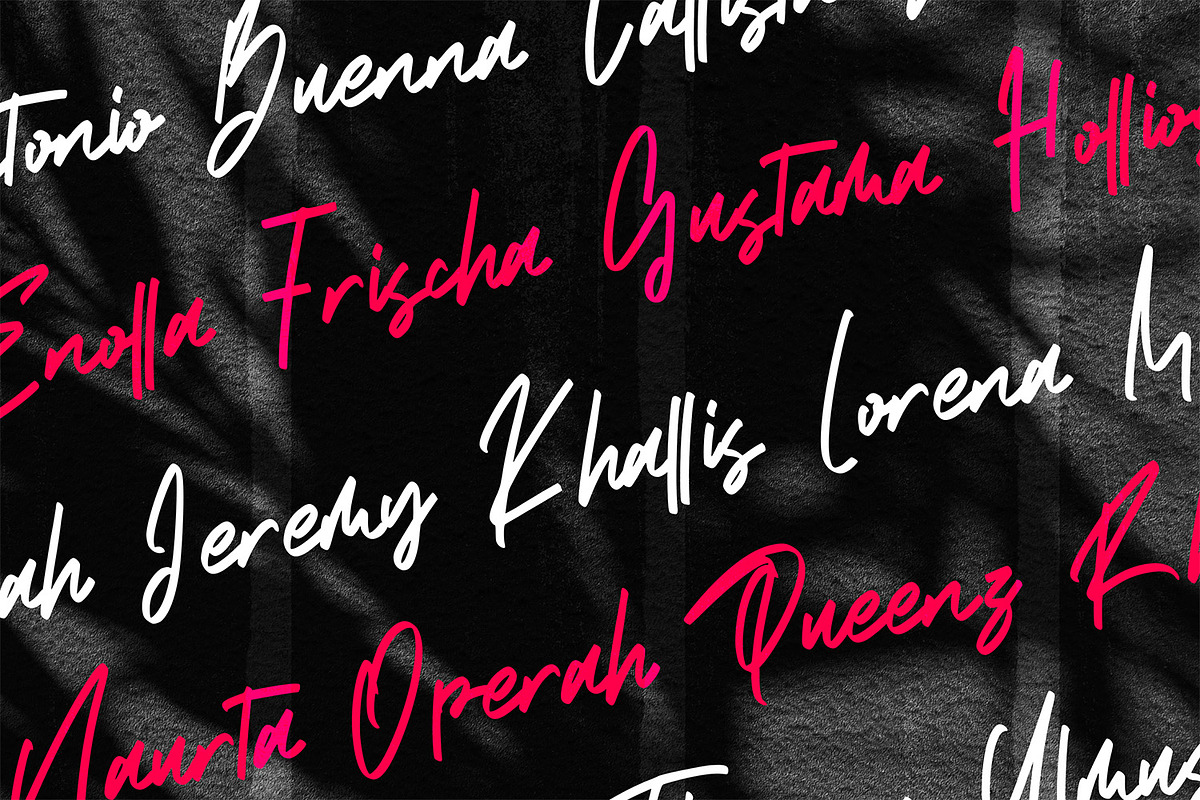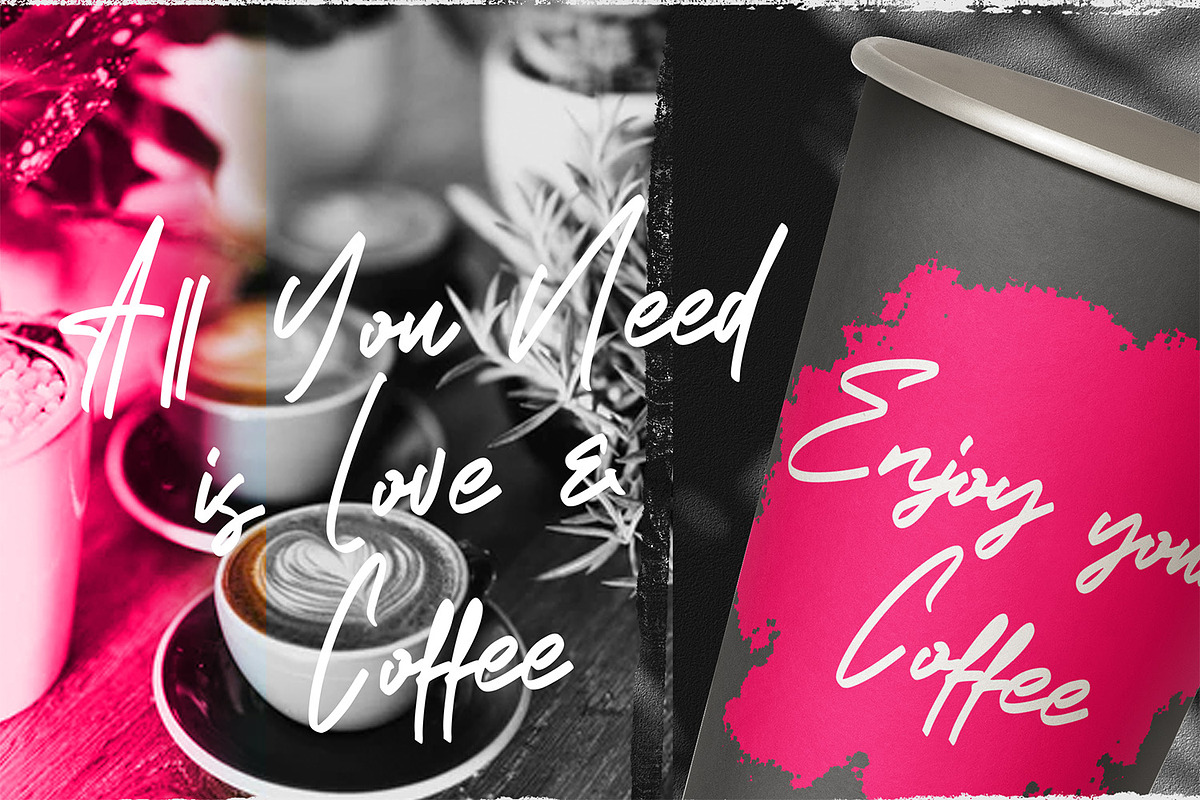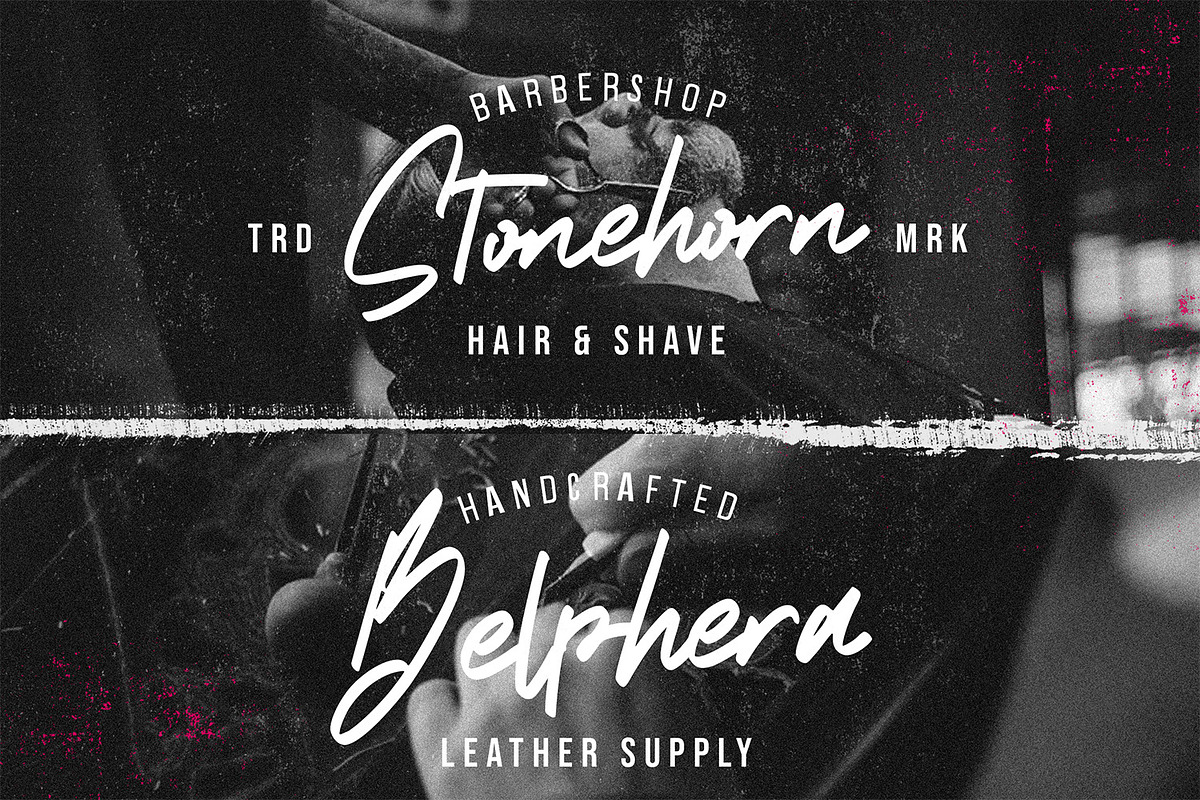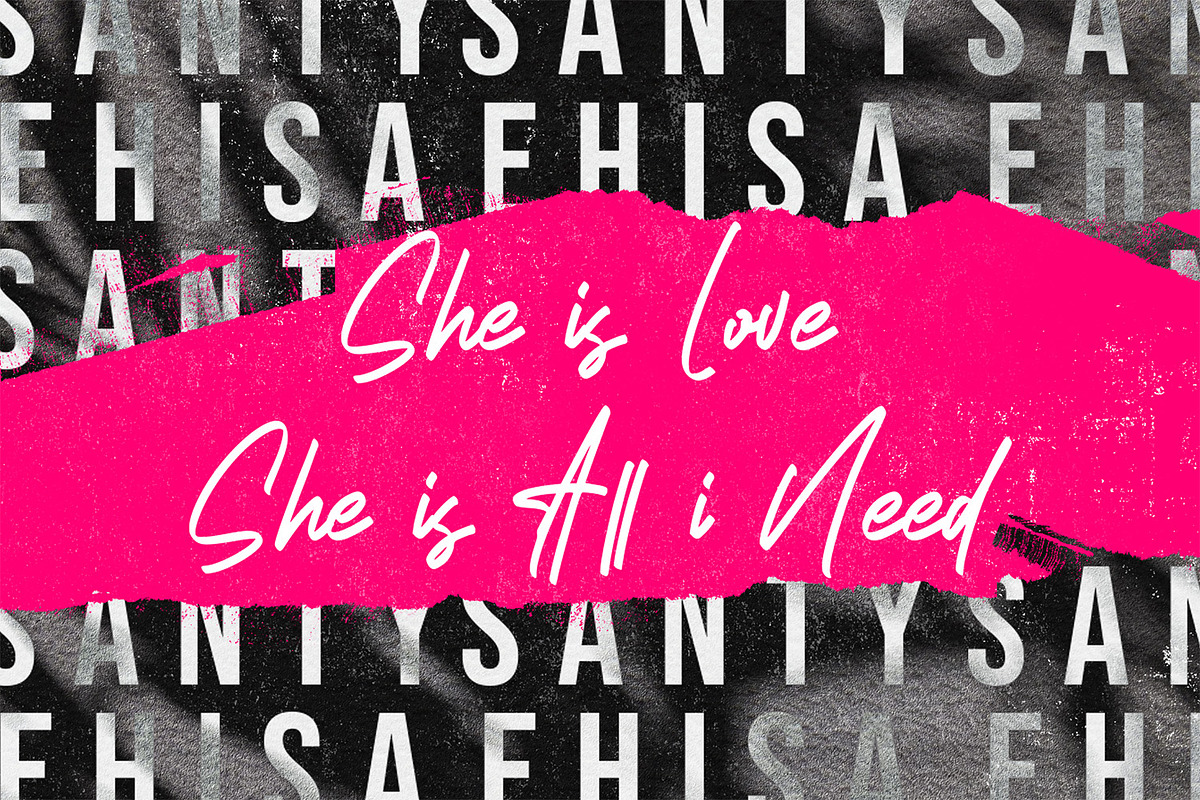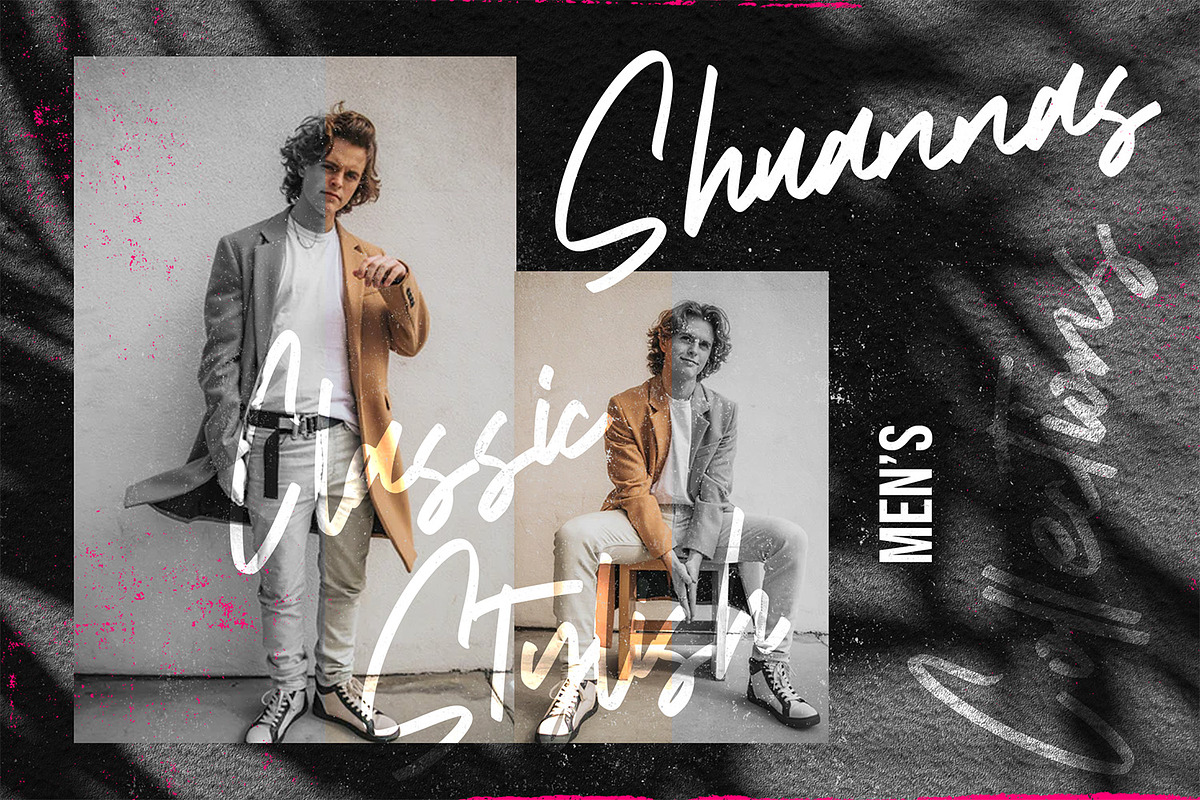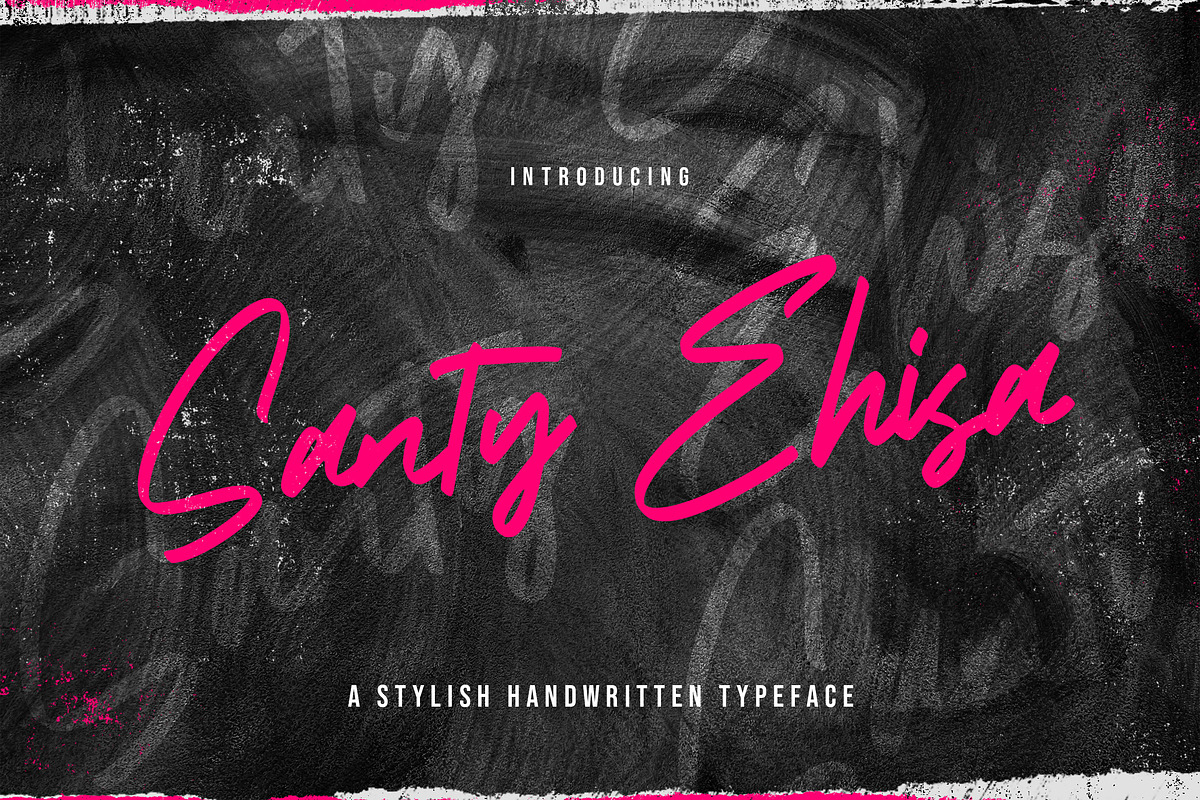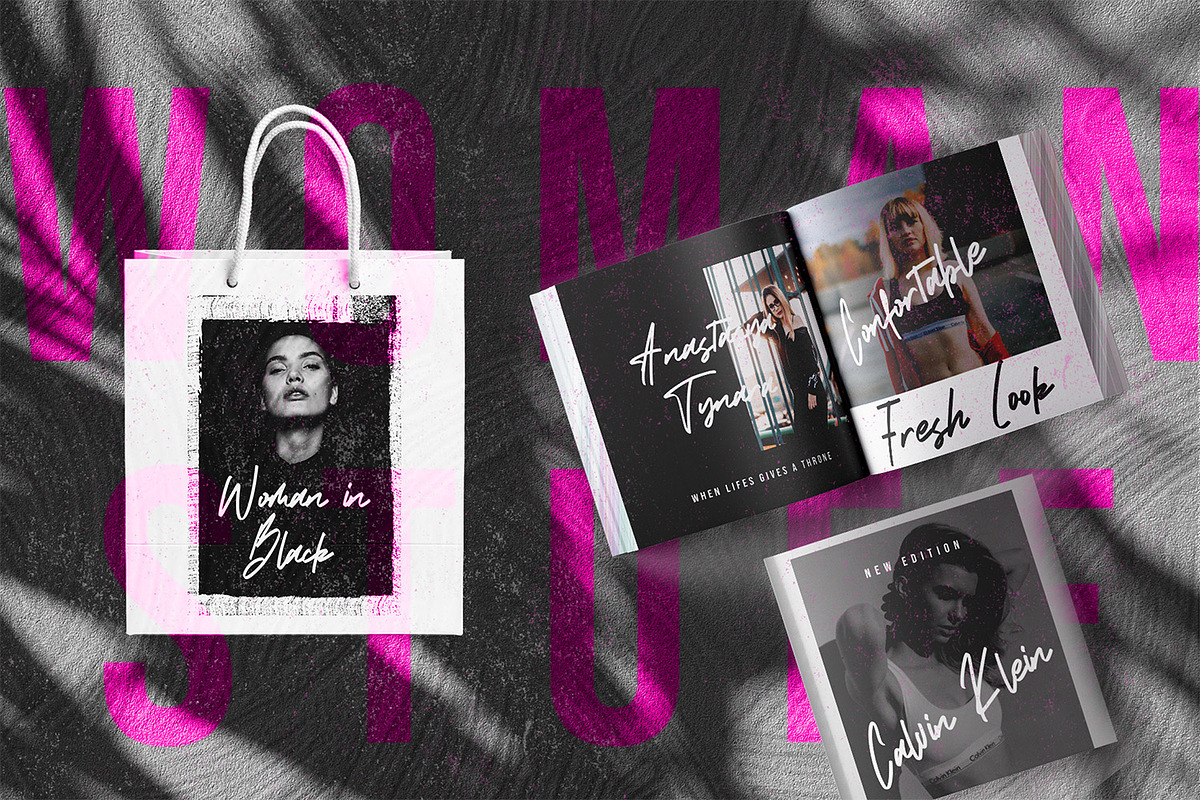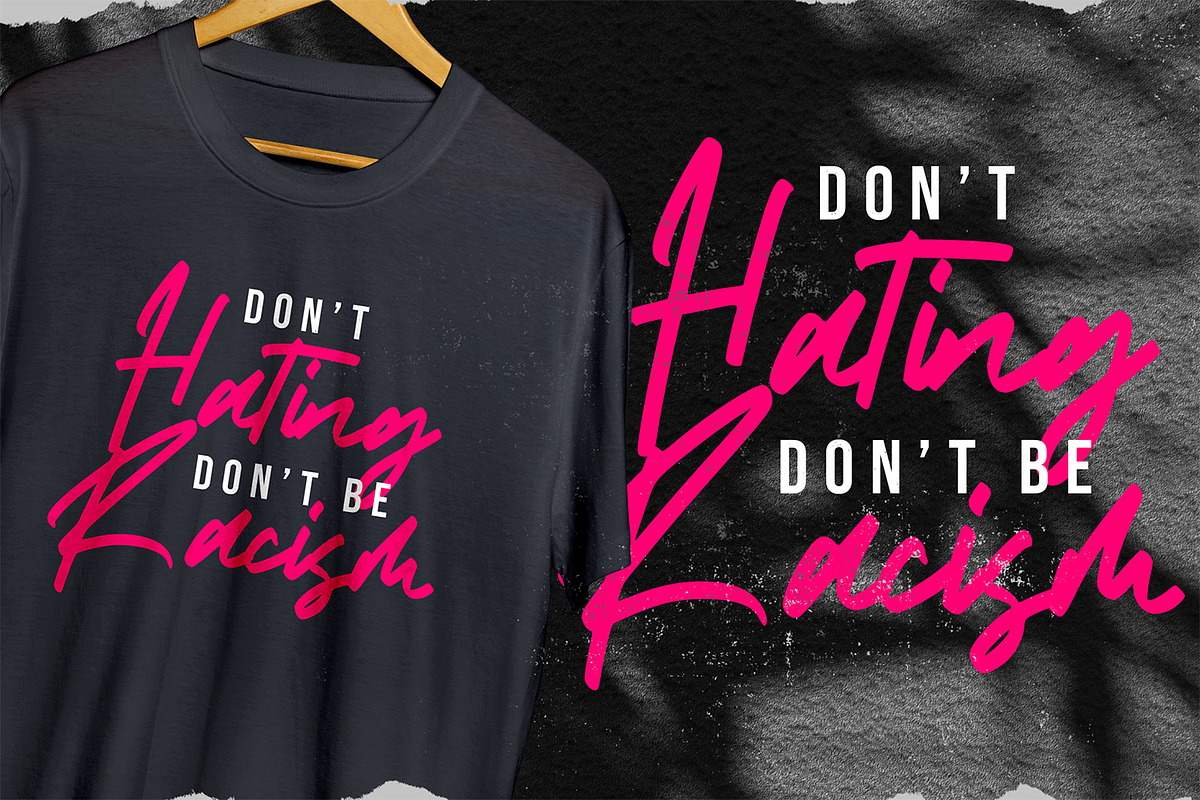
Santy Ehisa - Stylish Script Font
Introducing Santy Ehisa - Stylish Script Font
Santy Ehisa is a Stylish Script Font with Handwritten Style. The Santy Ehisa font made with digital brush pen strokes that making this font look authentic. This font is perfect for fashion brand, wedding invitation, business card, logo brand, signature, and then calligraphy.
- This Font contains Elegant, Stylish, Creative and has a Unique Concept.
Why Santy Ehisa - Stylish Script Font is worth a look
Santy Ehisa - Stylish Script Font by StringLabs fits naturally into Branding, posters, packaging, typography.